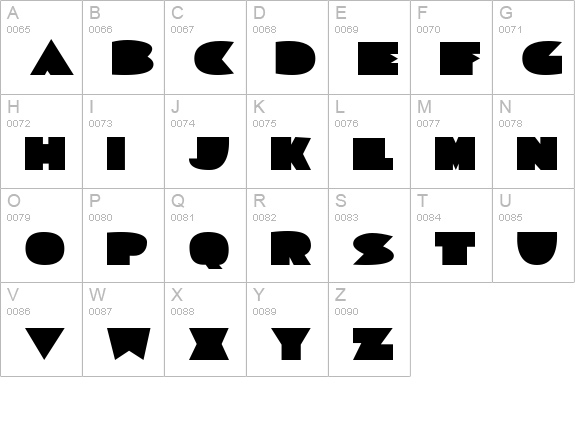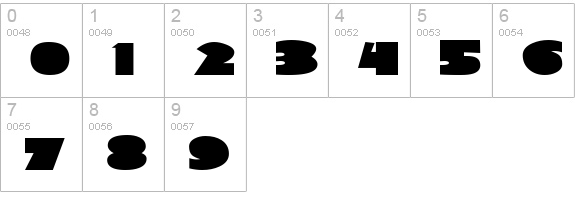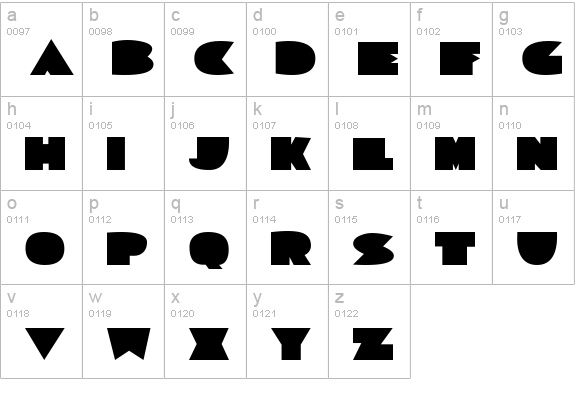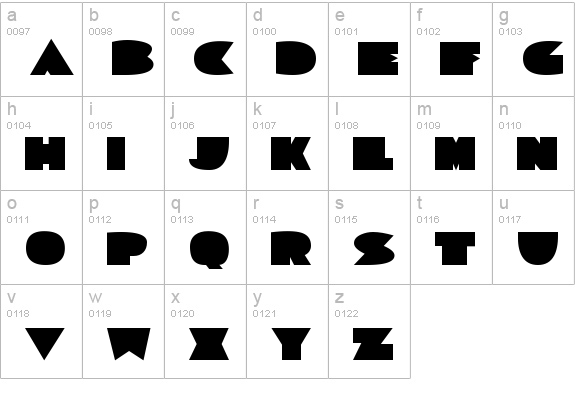
Sorta Deco JL Font Details
Sorta Deco JL is a stunning font that combines the charm of Art Deco with a modern twist. With its bold and geometric design, this font is sure to make a statement in any project. The clean lines and sharp edges give it a sleek and sophisticated look, making it perfect for logos, headlines, and branding materials. What sets Sorta Deco JL apart is not only its unique design, but also the fact that it is available for free. Yes, you read that right - this amazing font can be downloaded for free at FontsMarket.com. Now you can add a touch of elegance to your designs without breaking the bank. Whether you're working on a vintage-inspired project or simply want to add a touch of retro flair, Sorta Deco JL is the perfect choice. Its versatility allows it to be used in a variety of contexts, from classic designs to contemporary ones. The combination of its timeless style and modern sensibility makes it a go-to font for designers and creatives alike. Download Sorta Deco JL today from FontsMarket.com and unleash your creativity. With its free availability, you can explore all the possibilities this font has to offer without any limitations. So go ahead and give your designs the attention they deserve with Sorta Deco JL.